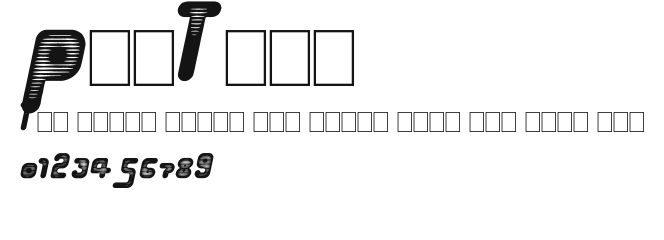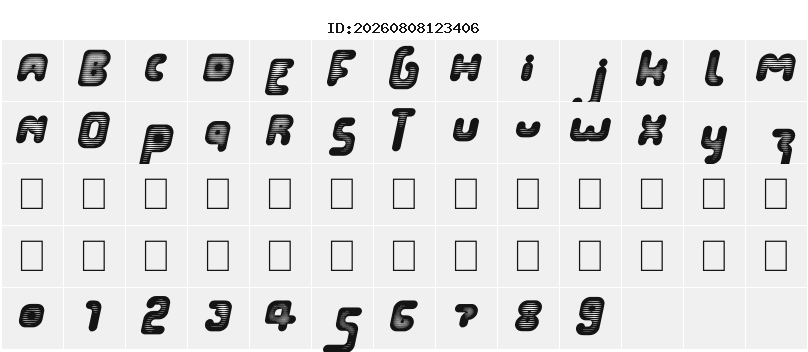
• Font Name: PopTivi
• Full Font Name: PopTivi
• Version: Version 1.00 October 20, 2011, initial release
• Copyright: Copyright © Imagex 2011
About PopTivi.ttf
PopTivi.ttf is a modern, elegant sans-serif font designed for ultimate readability and visual harmony. Perfect for branding, headlines, web design, and print materials.